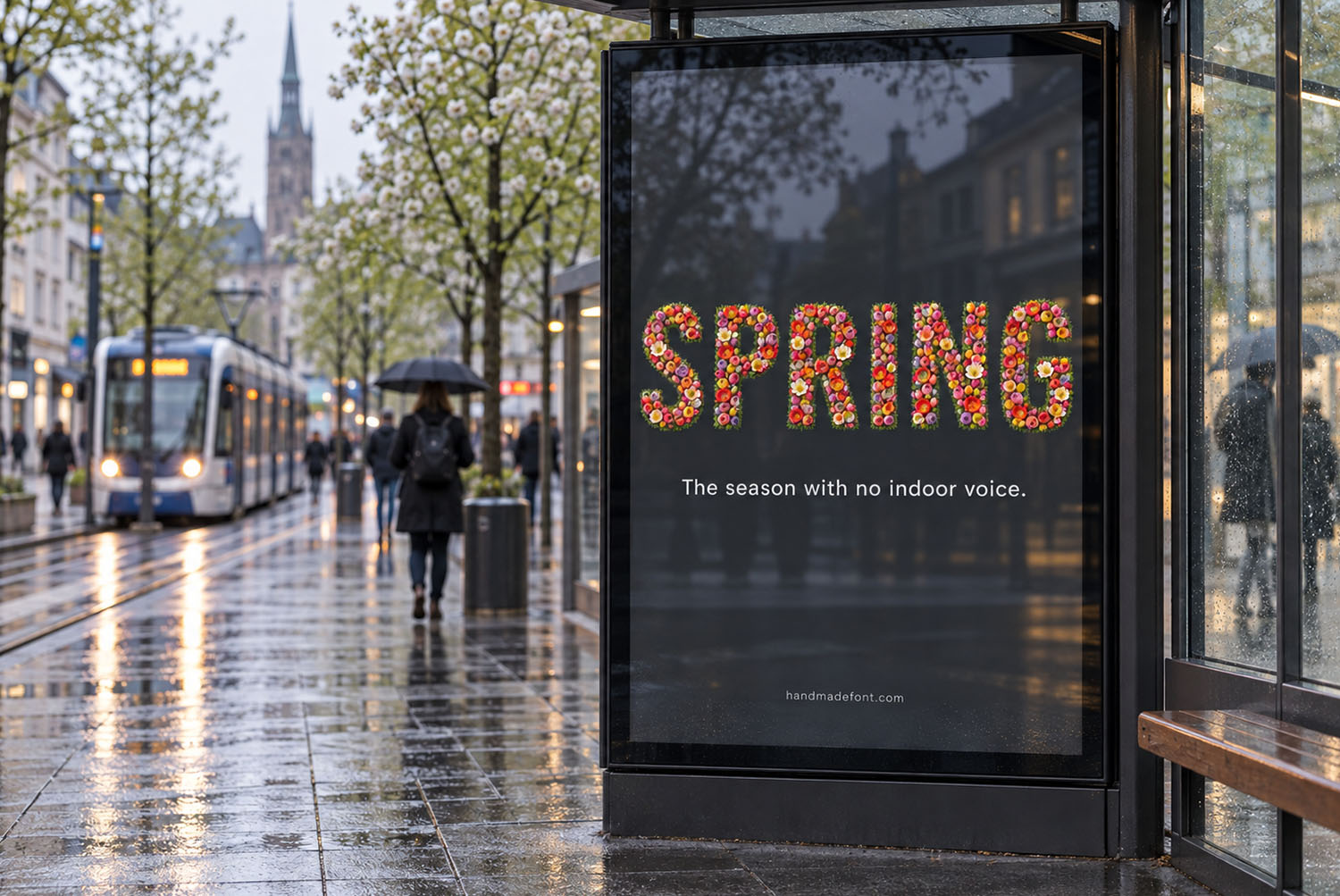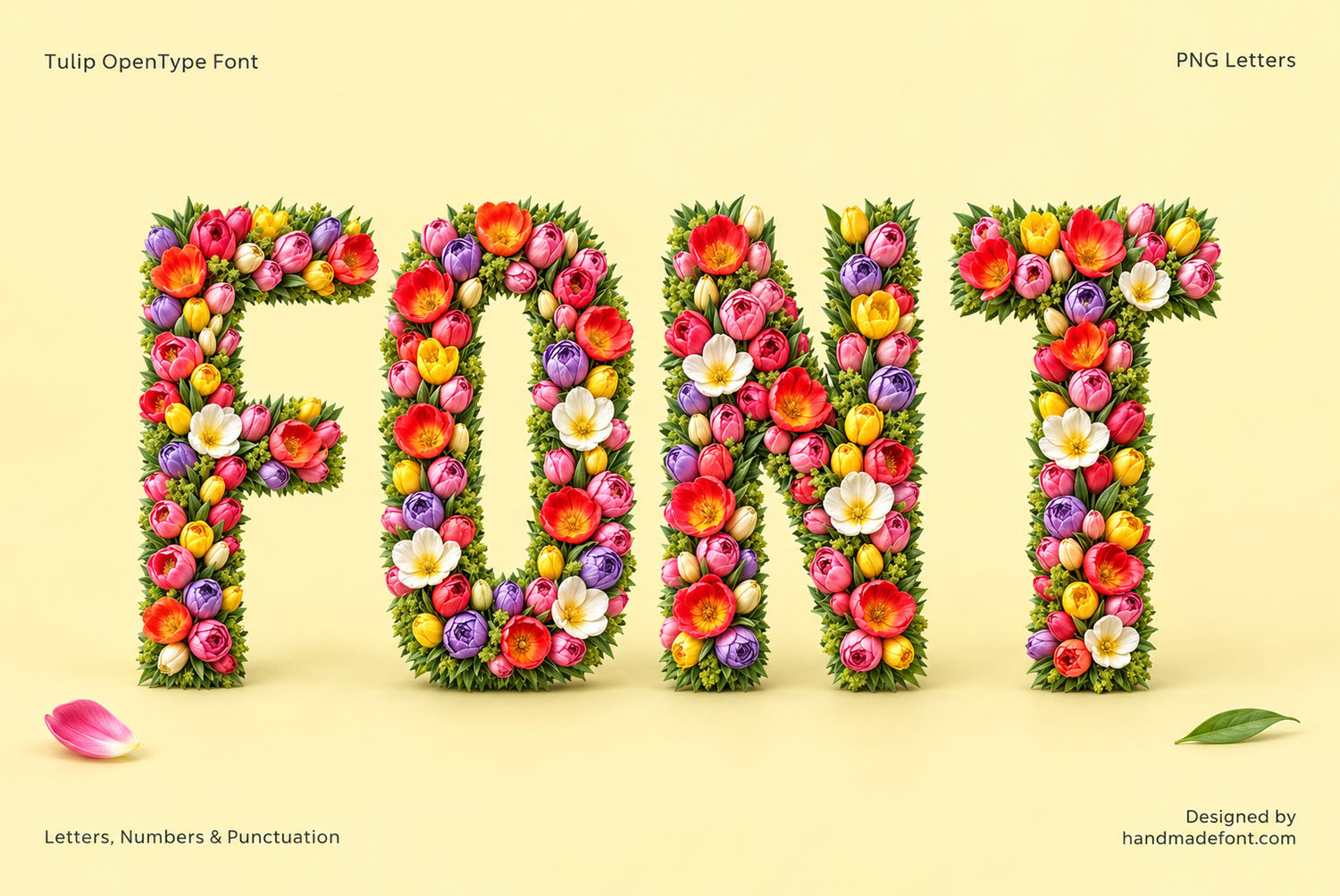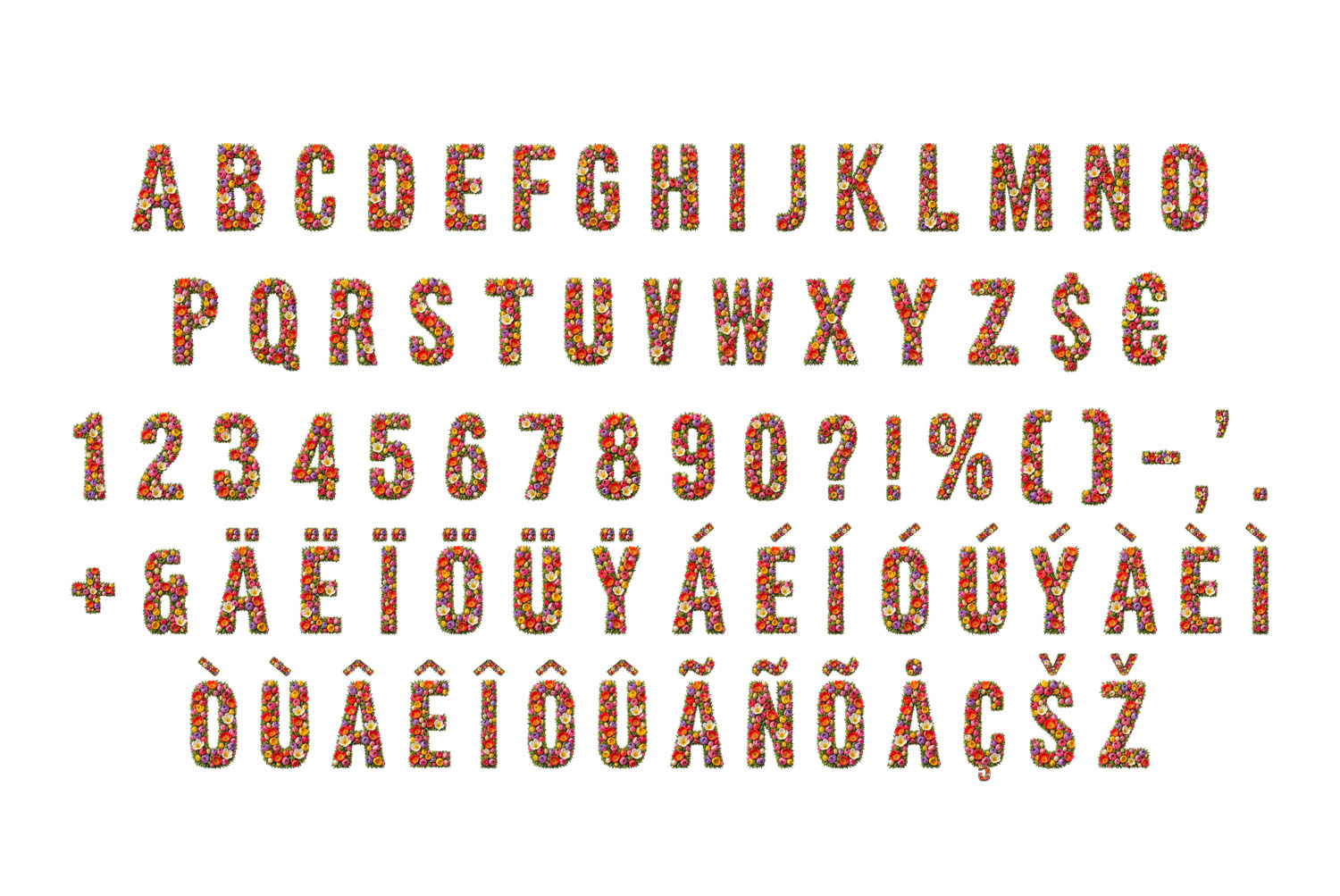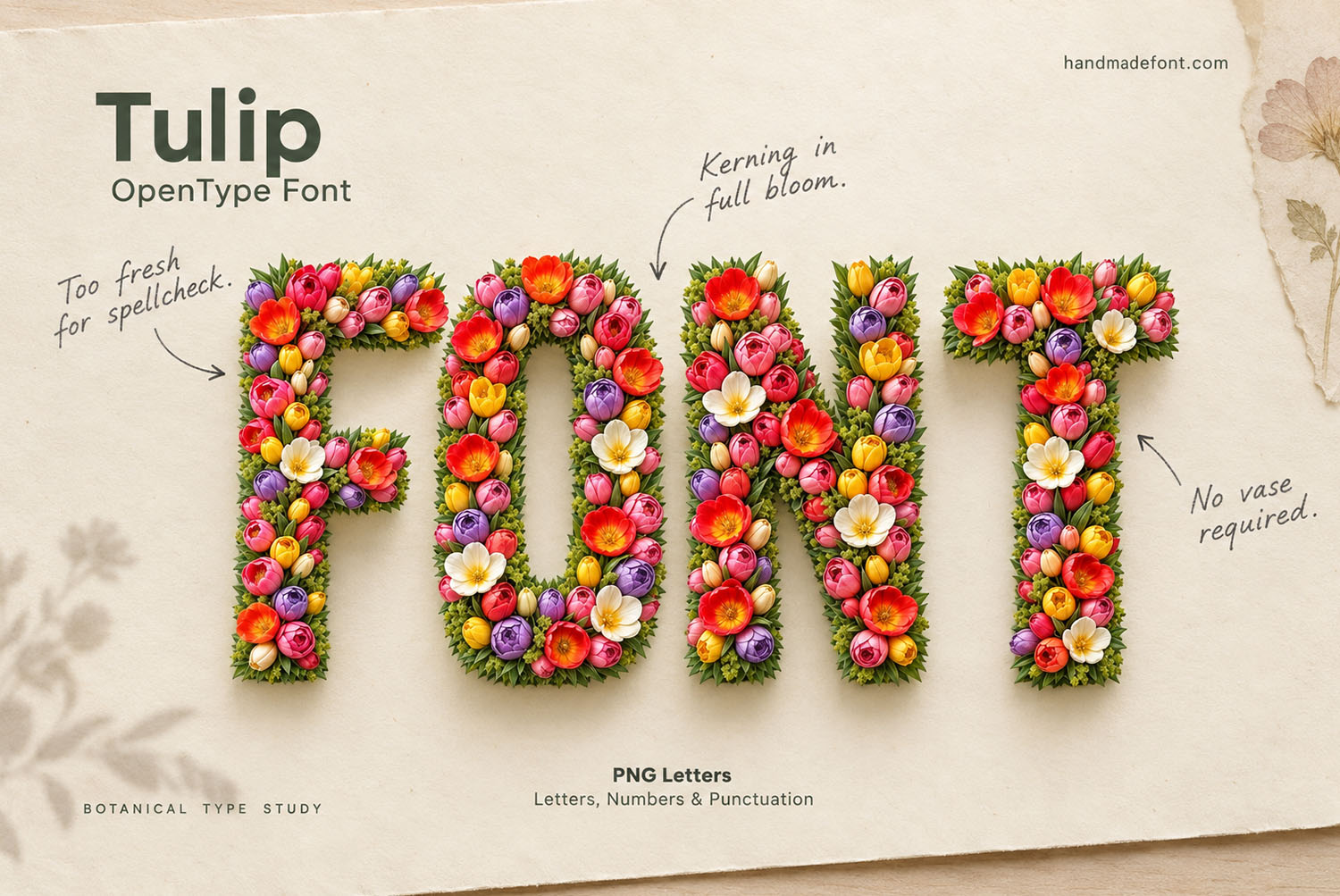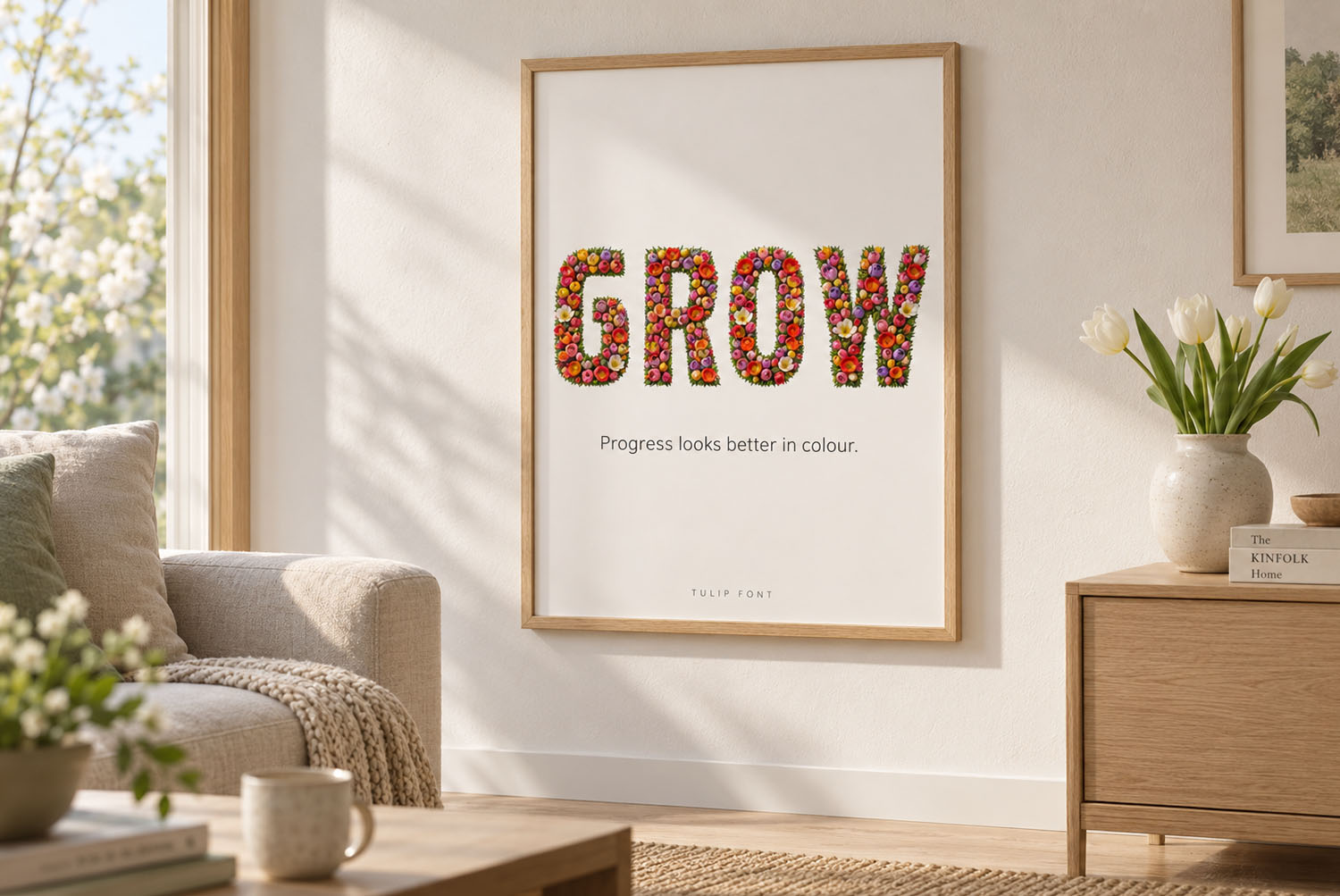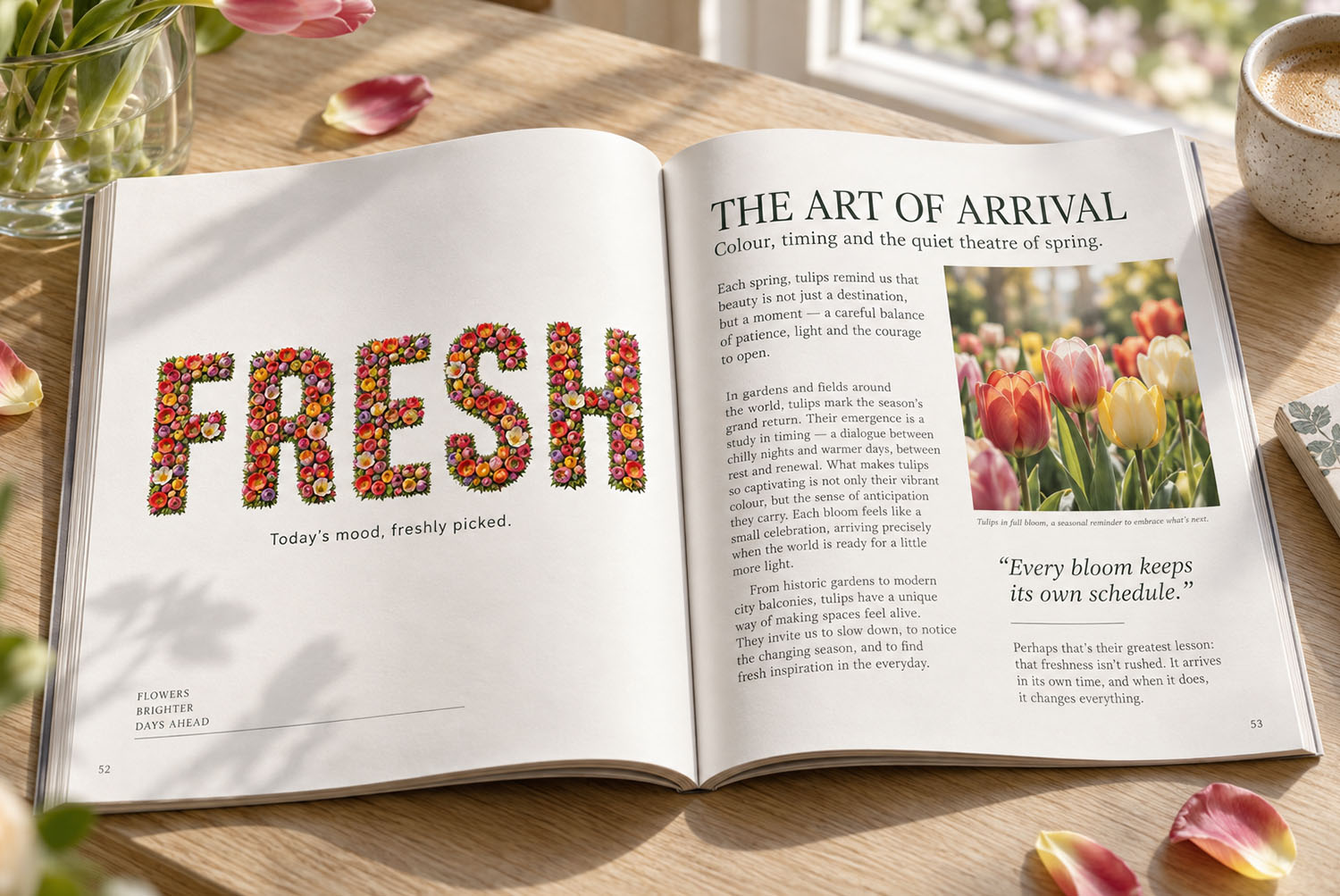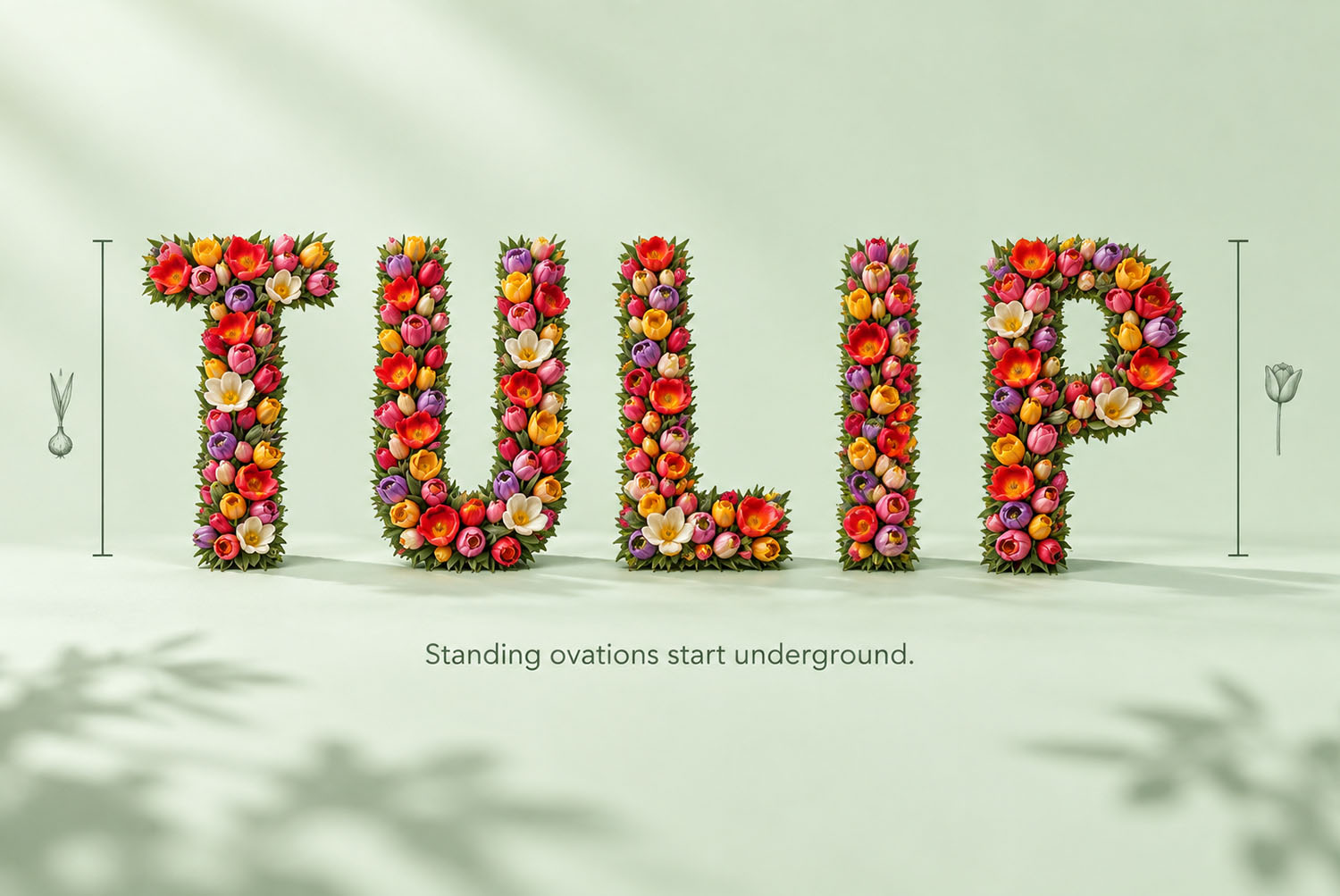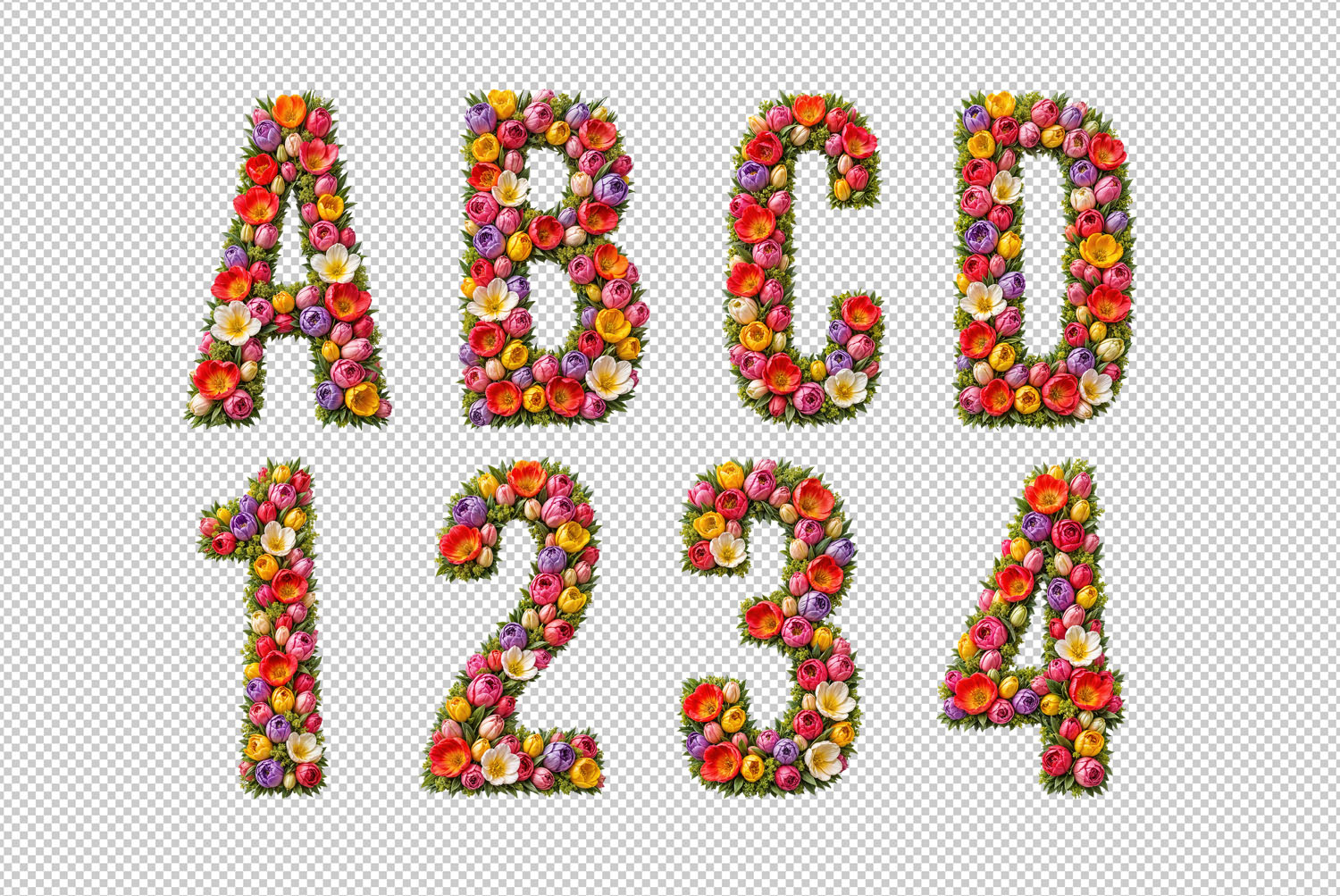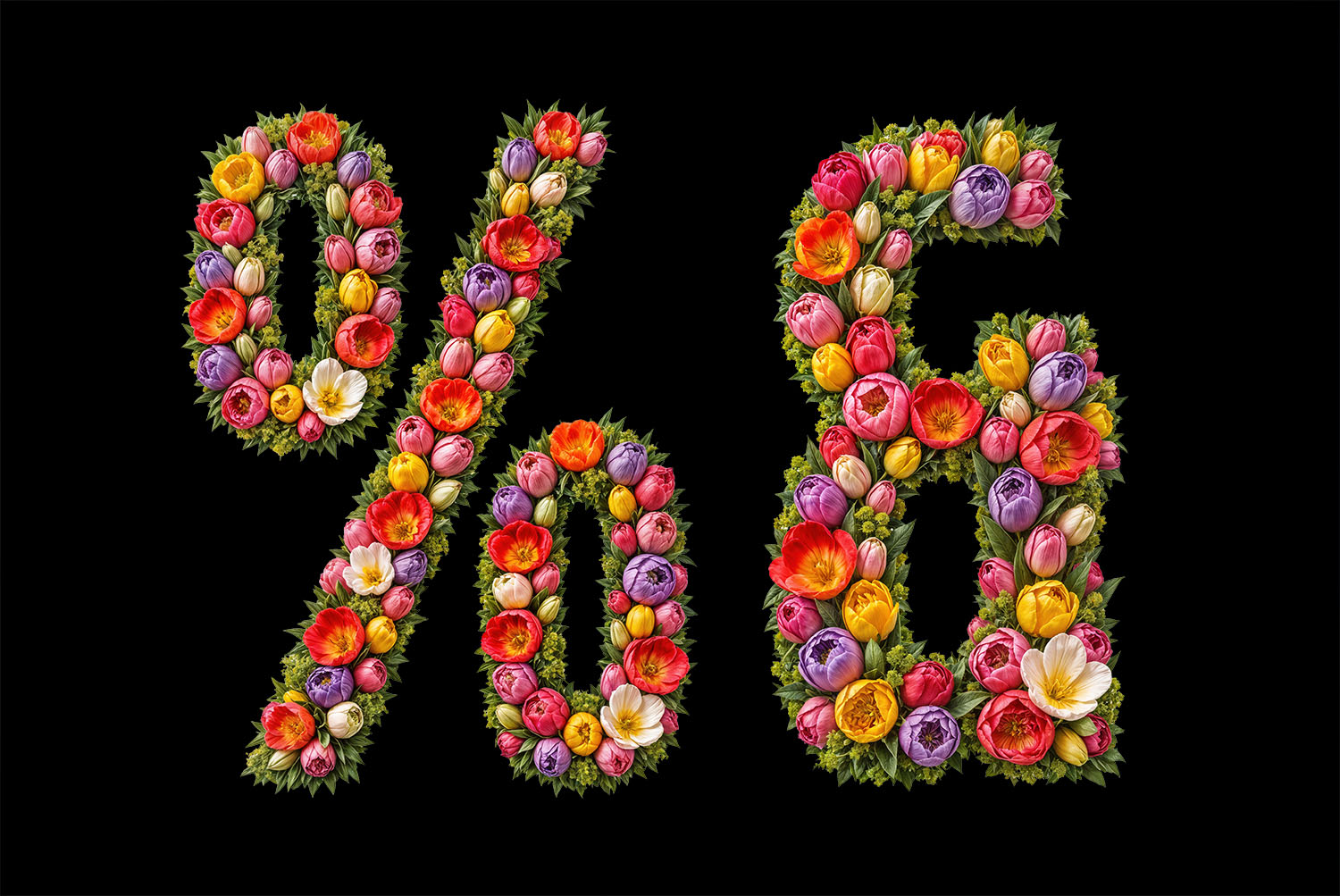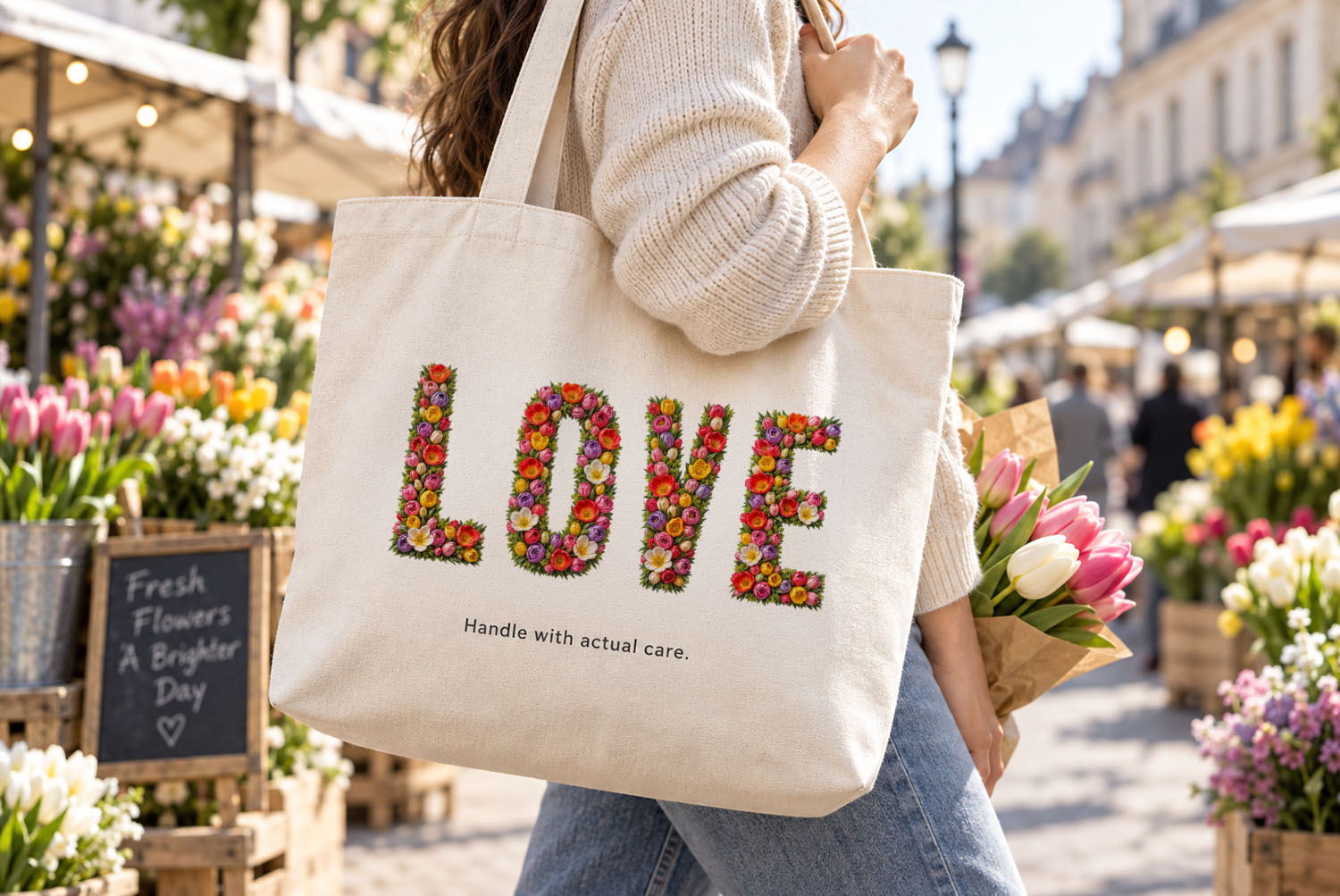
Tulip Font. Fresh Blooms in Bold Capitals
Bold capitals packed solid with fresh tulips, roses and small white daisies, with green leaves pushing out at every joint. Underneath sits a wide grotesque with open counters, so the words still read fast from a distance. Numbers, punctuation and accents come along. It arrives as an OTF you type with, plus separate transparent PNG letters.
Tulip Font Packs a Florist Window Into Every Letter
Somebody clearly raided the flower market, because every capital holds fresh blooms edge to edge. Tulips lead, naturally, while roses and small white daisies crowd the gaps between them. Green leaves push out at the foot of each stroke, so the letters never look pasted on. The petals catch light the way real ones do, since the shadows fall inside the letter too. Above all, Tulip Font looks cut this morning and arranged while it was still wet.
Blocky Capitals Hide Under All That Colour
Take the flowers away, though, and a wide, heavy grotesque sits underneath. The strokes stay thick and the counters stay open, because a bouquet needs room to read as a letter. Of course that skeleton keeps a word legible from the far side of a room. Numbers, currency, punctuation and a long run of accents come along too, so foreign spellings cause no panic. Meanwhile the ampersand and the percent sign get the same flower treatment.
Florists and Wedding Printers Reach It First
One word in a flower shop window does the whole job, because nobody needs the rest explained. Wedding stationery takes it just as easily, since every letter brings its own arrangement. A rainy bus-stop billboard, a magazine spread and a canvas tote all carry it in the mockups, naturally. Spring campaigns are the obvious home, though a cosmetics label suits it just as well. Dark backgrounds make the colours glow, while pale paper keeps everything soft.
Pull the Tulip Font Apart Letter by Letter
The word FONT set in the Tulip Font on a cream cover with fallen petals
The word SPRING set in the Tulip Font on a rainy city bus stop billboard
Magazine spread with the word FRESH set in the Tulip Font beside tulip photographs
The word LOVE in the Tulip Font printed on a canvas tote at a flower market
The word GROW in the Tulip Font framed as a poster above a living room chair
The word TULIP in the Tulip Font on a pale green wall with leaf shadows
Percent and ampersand signs of the Tulip Font made of flowers on black
Specimen sheet of the Tulip Font with handwritten notes beside the flower letters
Complete character set of the Tulip Font with numbers, currency and accents
Separate transparent PNG letters and numbers of the Tulip Font